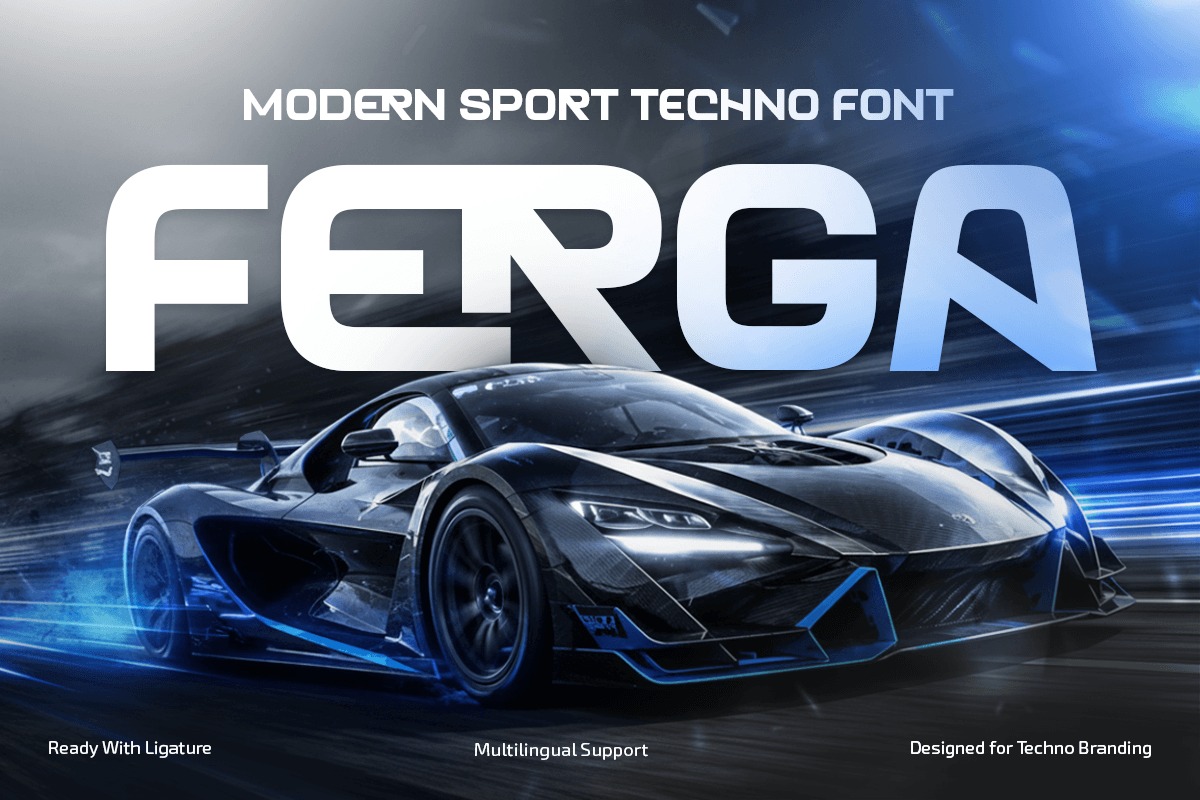
Ferga – Sport Techno Font
Ferga – Sport Techno Font is a versatile font designed to adapt beautifully across different design styles, offering dependable readability and balance. Ferga – Modern Sport Techno Font is a futuristic sport techno font crafted for motorsport branding, automotive graphics, gaming visuals, esports identities, and high-performance logo design. Inspired by advanced technology, competitive racing, and modern engineering, Ferga combines bold typography with dynamic styling to create visually striking brand experiences.
Featuring sharp geometric letterforms, performance-inspired details, and a futuristic structure, Ferga delivers a strong sense of speed, precision, and innovation. Its modern design is optimized for logo creation, display headlines, promotional graphics, and branding systems, making it the perfect choice for projects that require energy and impact.
Whether you’re designing a motorsport logo, creating an automotive brand, building an esports identity, or developing technology-focused marketing materials, Ferga provides the powerful typography needed to communicate motion, strength, and cutting-edge design.
Ferga Font Features
Character Set: Uppercase, lowercase, numbers, symbols, and punctuation
Modern sport techno letterforms optimized for logo design and performance branding
OpenType features ready to enhance your design needs
Ferga is Perfect For
Motorsport and racing branding
Automotive logo and visual identity design
Esports and gaming branding
Technology startup branding
Sports branding and performance campaigns
Website headers and digital brand assets
Dynamic display typography
High-performance marketing and promotional materials
Whether you’re creating a motorsport logo, developing an automotive brand, designing gaming and esports graphics, or building a technology-driven visual identity, Ferga delivers the speed, innovation, and bold character of a modern sport techno font built for contemporary branding.